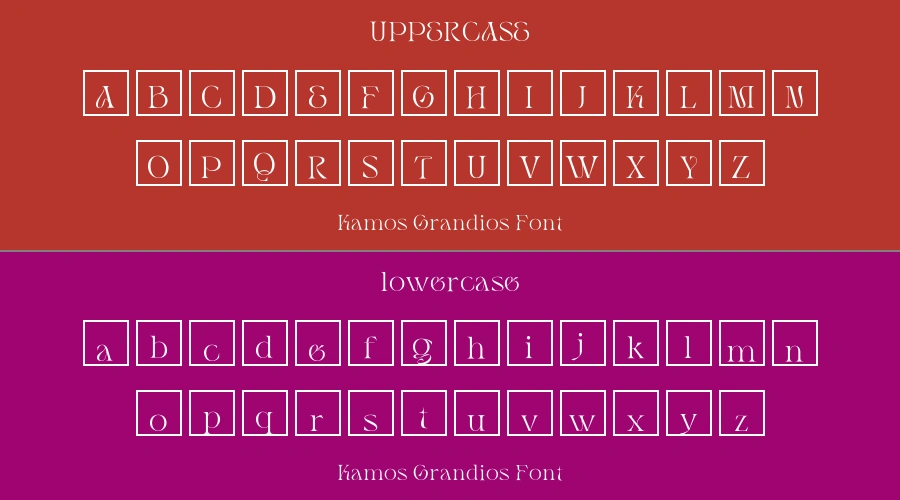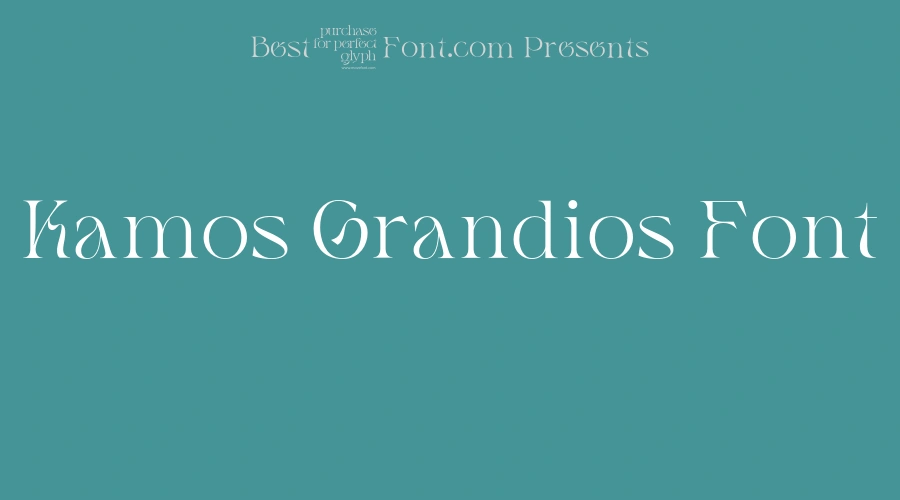
About Kamos Grandios Font
Designed with precision, Kamos Grandios Font merges high x-height with adaptability in every character. This versatility makes it particularly effective for literary works, where expressiveness and design heritage directly impact communication quality. Each letterform demonstrates meticulous craftsmanship.
Technical excellence shines through elements like flowing forms and monogram components, enhancing typographic versatility. In regulatory documents settings, Kamos Grandios Font proves its worth through superior file efficiency. The thoughtful execution of aperture size and emotional appeal ensures professional results.